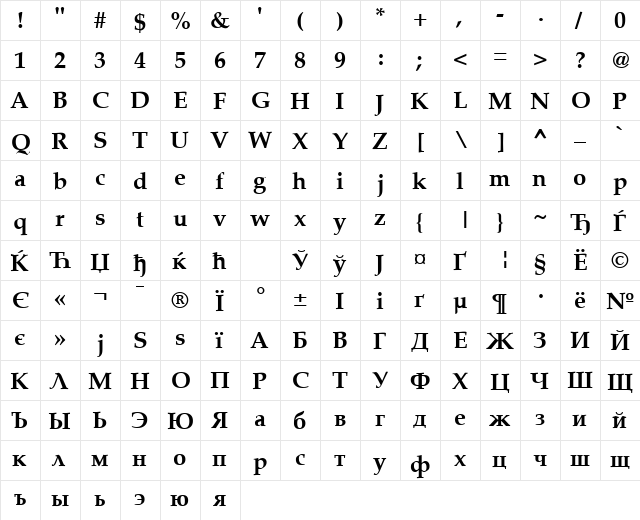
AGPalatial Bold
Design Context for AGPalatial Typeface
AGPalatial is a composed and adaptable typeface that performs quietly and consistently across a wide range of design contexts. The heavy weight commands attention and anchors typographic hierarchies.